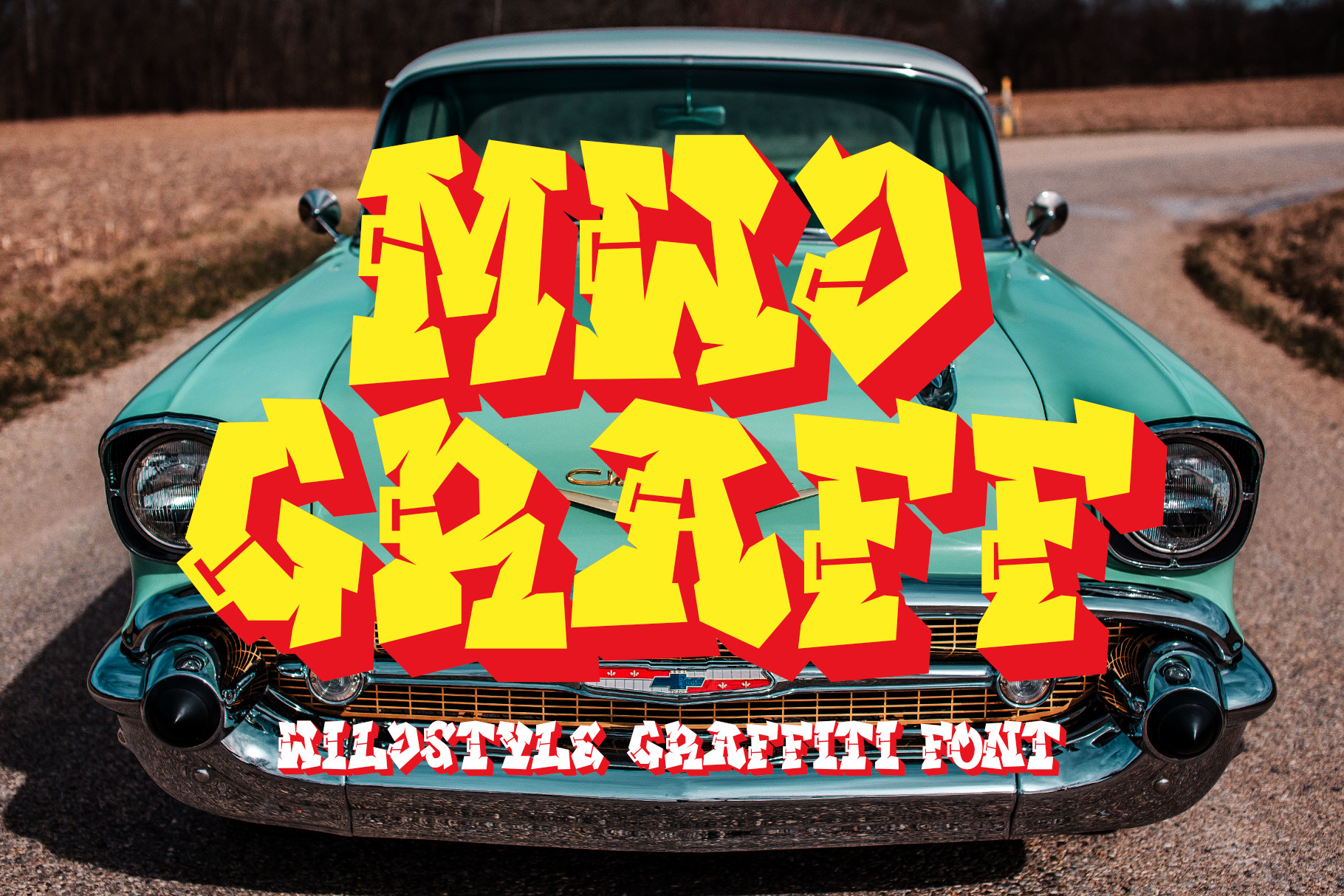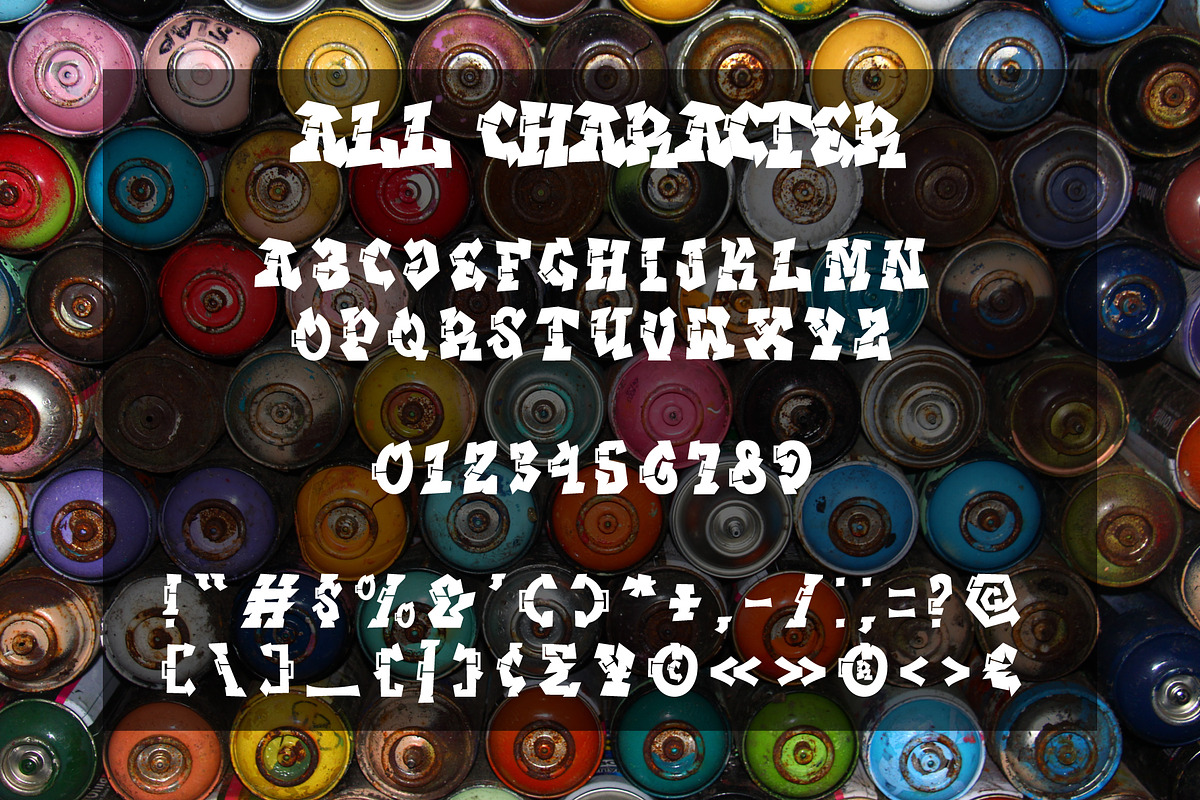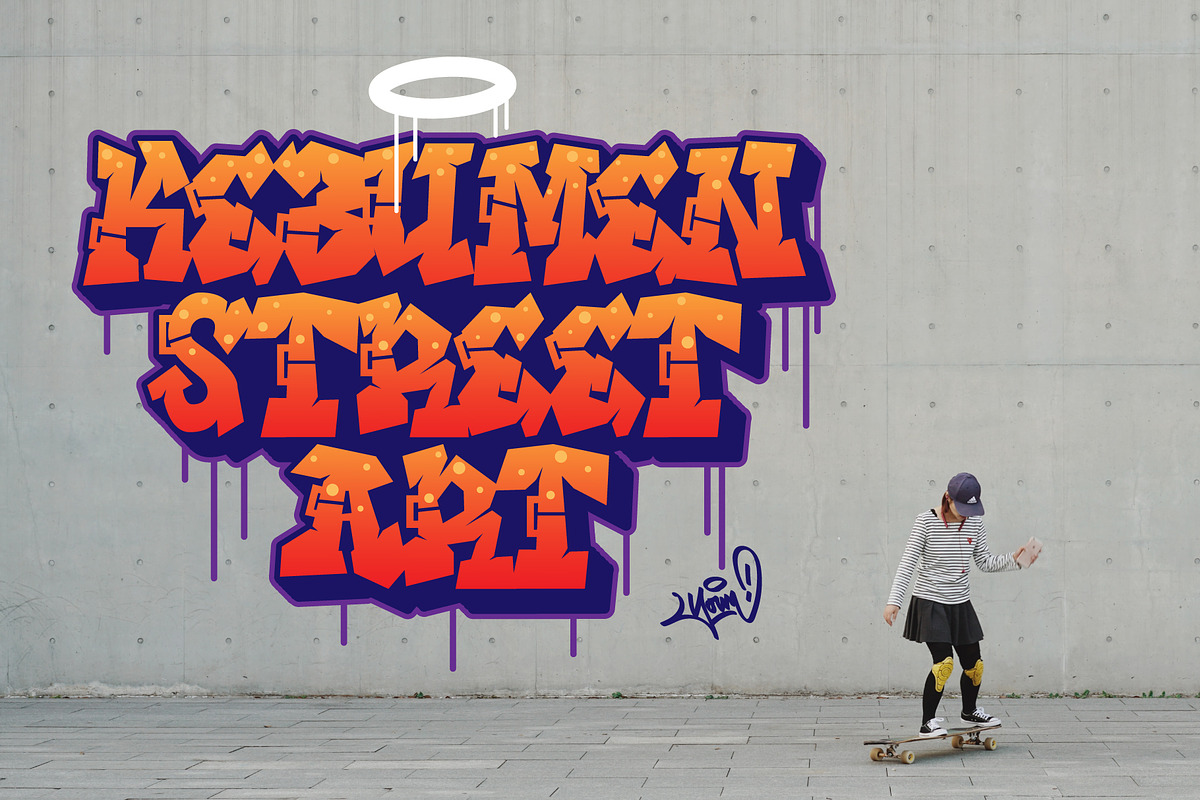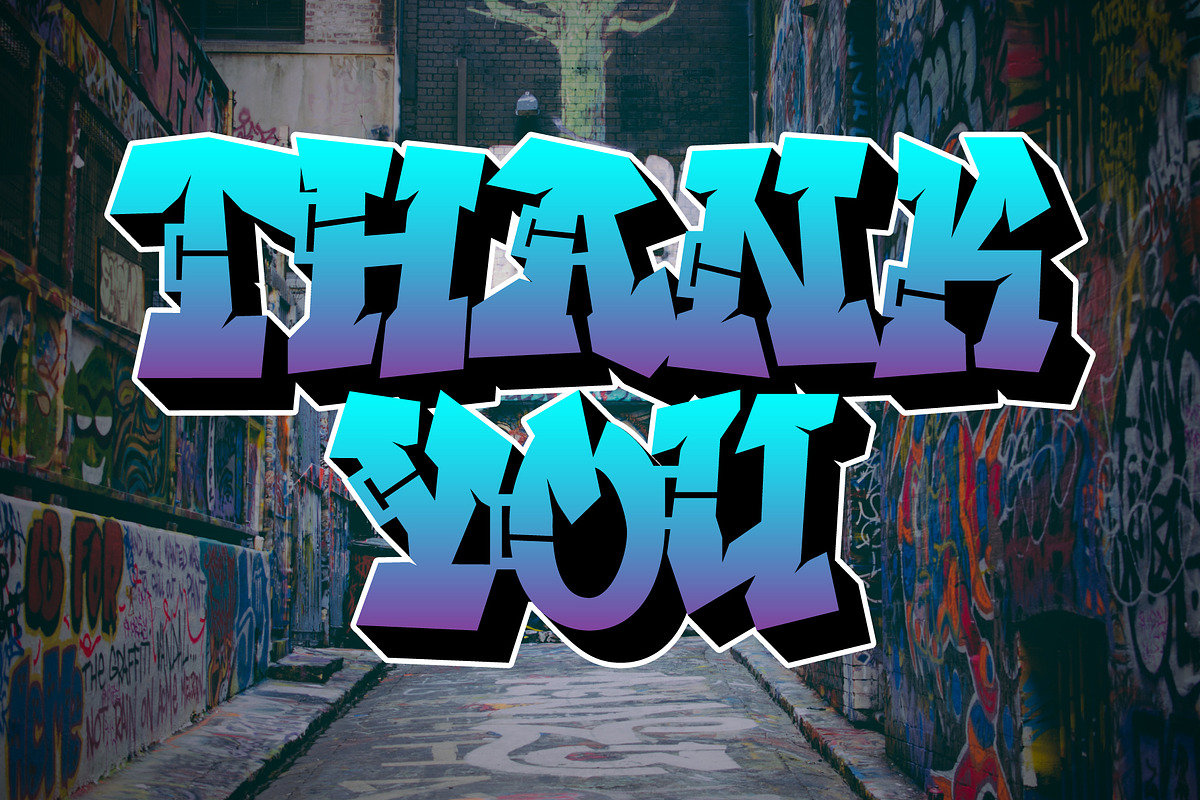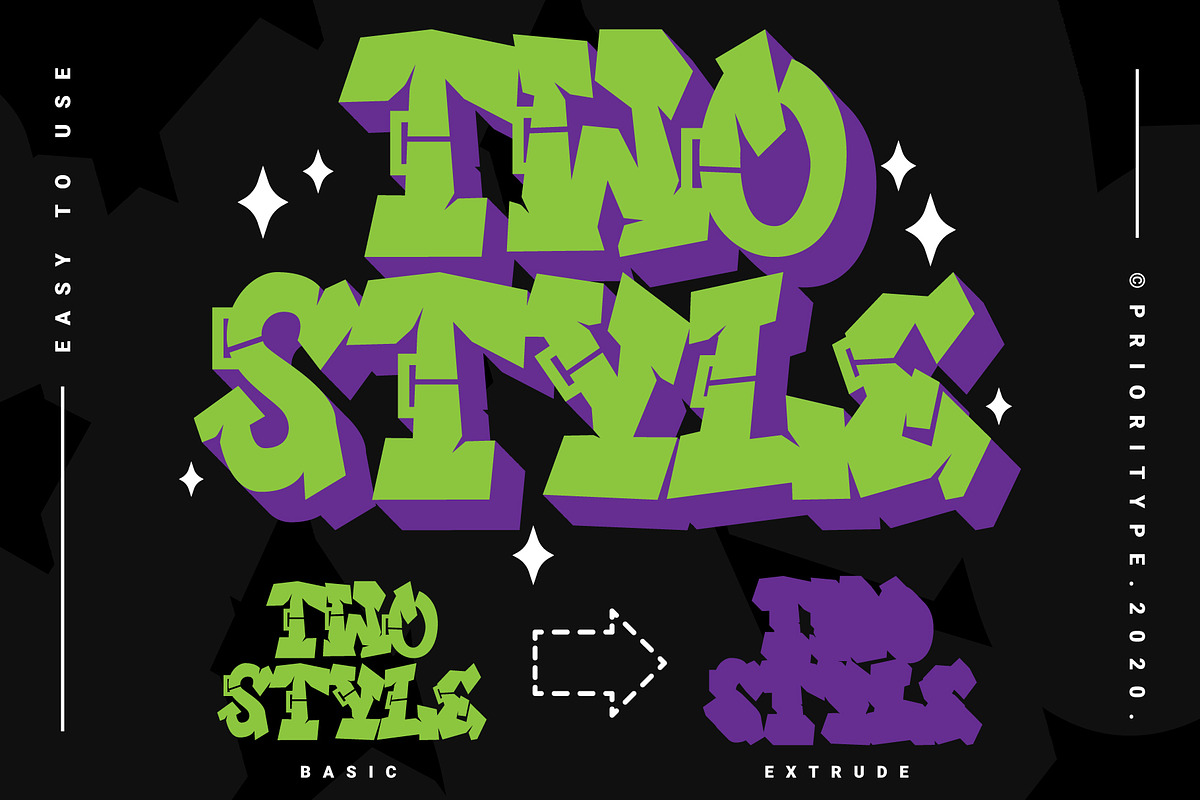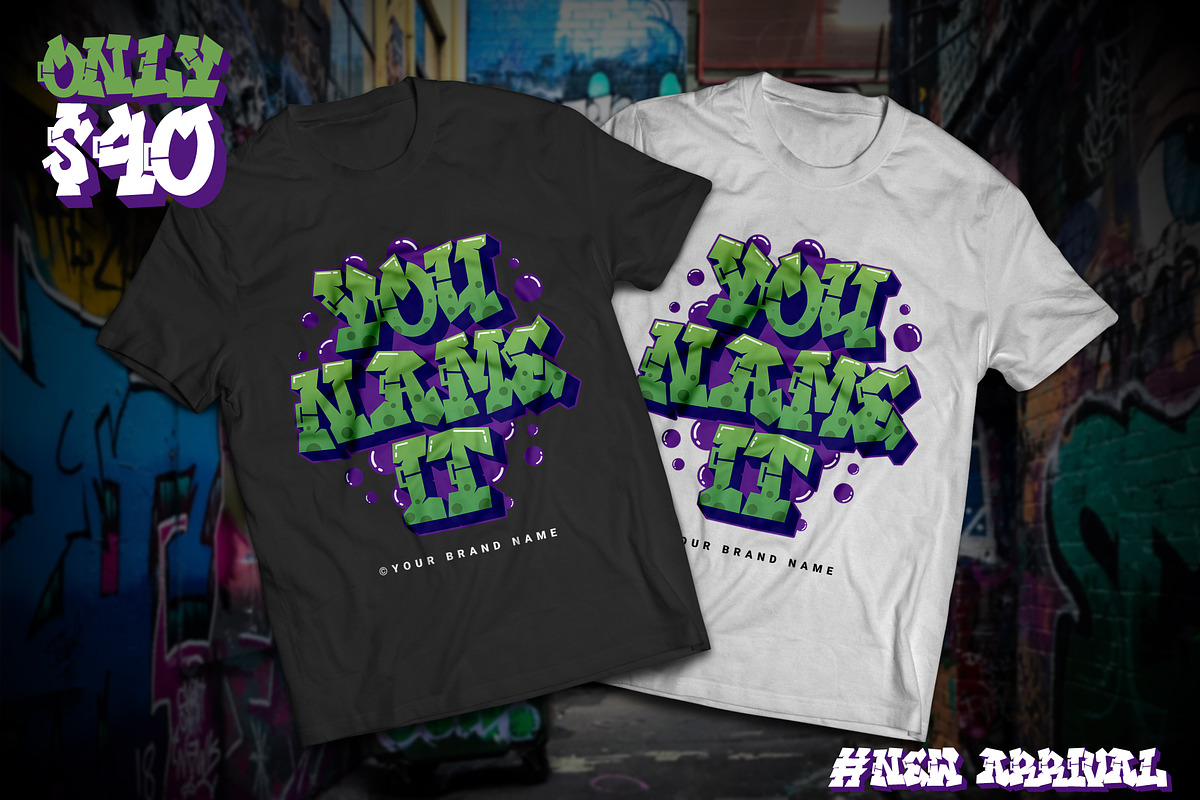
MWD Graff - Wildstyle Graffiti Font
Wildstyle graffiti font with two styles namely basic and extrude. Make it easier and shorten your time to create a project. Can be applied to t-shirt designs, wall posters, element designs, ui games etc.
- Features: Uppercase & Lowercase (All Caps), Numeral & Punctuation.